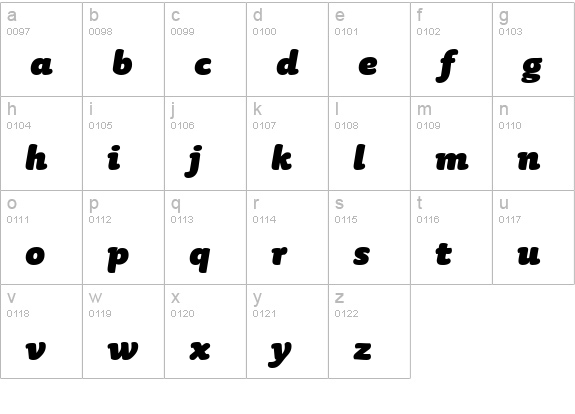
Introducing Sauna-BlackItalic font, a sleek and sophisticated typeface designed to add a touch of elegance and modernity to any project. This font exudes confidence and flair, making it perfect for high-end designs, branding, and editorial work. Sauna-BlackItalic boasts a unique combination of boldness and finesse, with its beautifully slanted letterforms that effortlessly capture attention. Its sharp and precise lines create a strong visual impact, while its subtle curves add a touch of delicacy and refinement. One of the standout features of Sauna-BlackItalic is its versatility. This font seamlessly adapts to various design styles, whether it's used for headlines, subheadings, or body text. It effortlessly brings a sense of sophistication and professionalism to any layout. But what truly sets Sauna-BlackItalic apart is its availability as a free download. That's right, this exceptional font can be yours without any cost. Simply head over to FontsMarket.com, where you can freely access and download Sauna-BlackItalic. This means that you can enhance your designs with this remarkable typeface without breaking the bank. Don't miss out on the opportunity to elevate your design projects with Sauna-BlackItalic. Its bold and italicized presence will captivate your audience and leave a lasting impression. Download this font today and unleash your creativity with a touch of elegance and style.